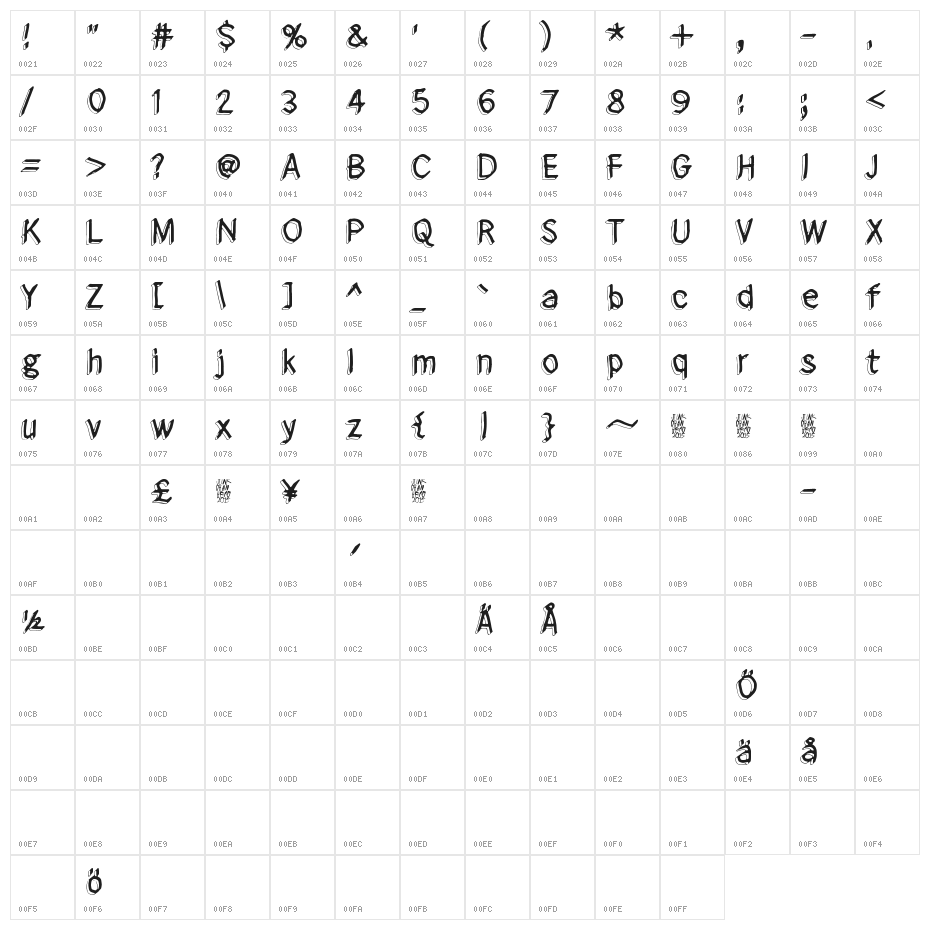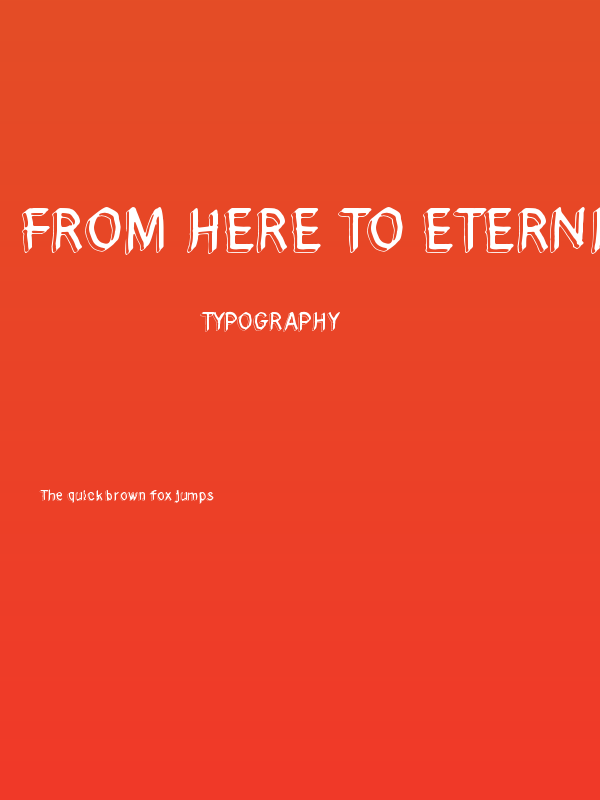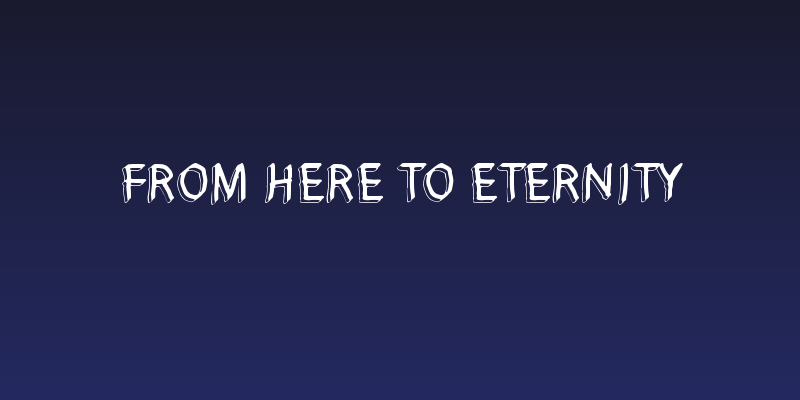
From here to eternity Font
From here to eternity Description
This font features a bold, hand-drawn style with a playful and artistic flair. The characters have a unique, uneven stroke that gives them a dynamic and lively appearance. The letters are slightly slanted, adding to the casual and informal feel. The uppercase and lowercase letters maintain a consistent style, with rounded edges and a slightly exaggerated width. Numbers and special characters follow the same design principles, ensuring a cohesive look across all elements. The font's overall aesthetic is reminiscent of graffiti or street art, making it ideal for projects that require a bold and expressive touch.
| Proposed Projects | Ideal for posters, album covers, street art designs, and creative branding projects. |